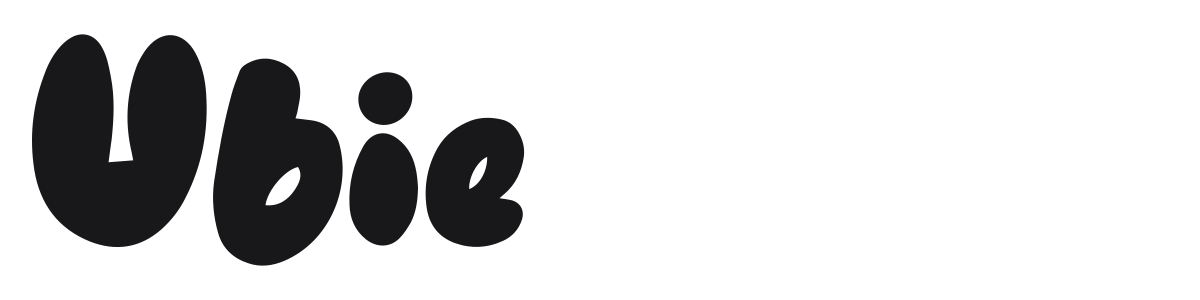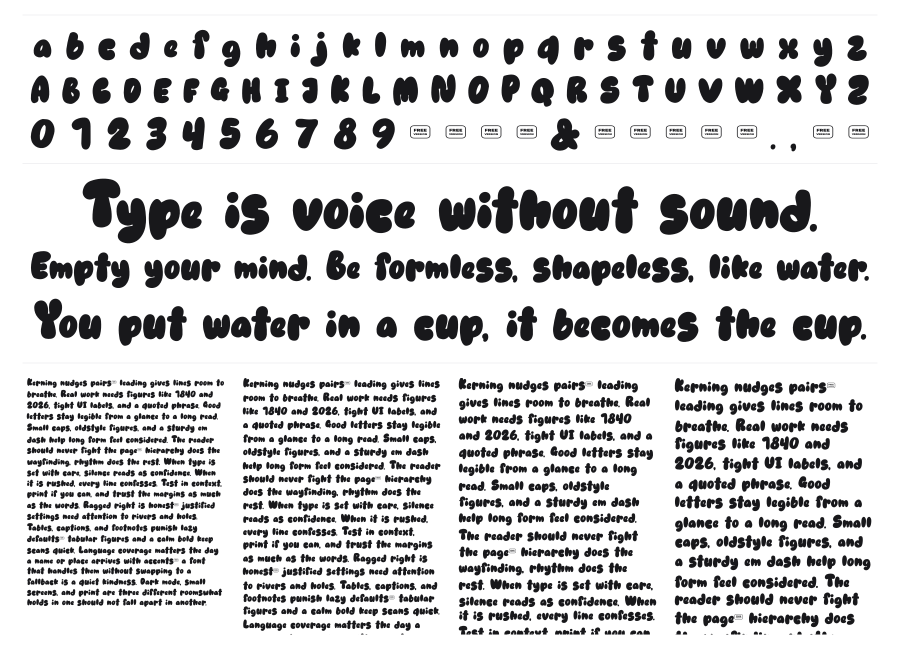
Ubie
Ubie is a bold, bubbly display font with fat, rounded strokes and a cheerful energy that's hard to ignore. The heavily inflated characters read almost like cartoon bubble letters, making it a natural choice for birthday invitations, greeting cards, and anything that needs a shot of personality. It's unapologetically loud at large sizes.